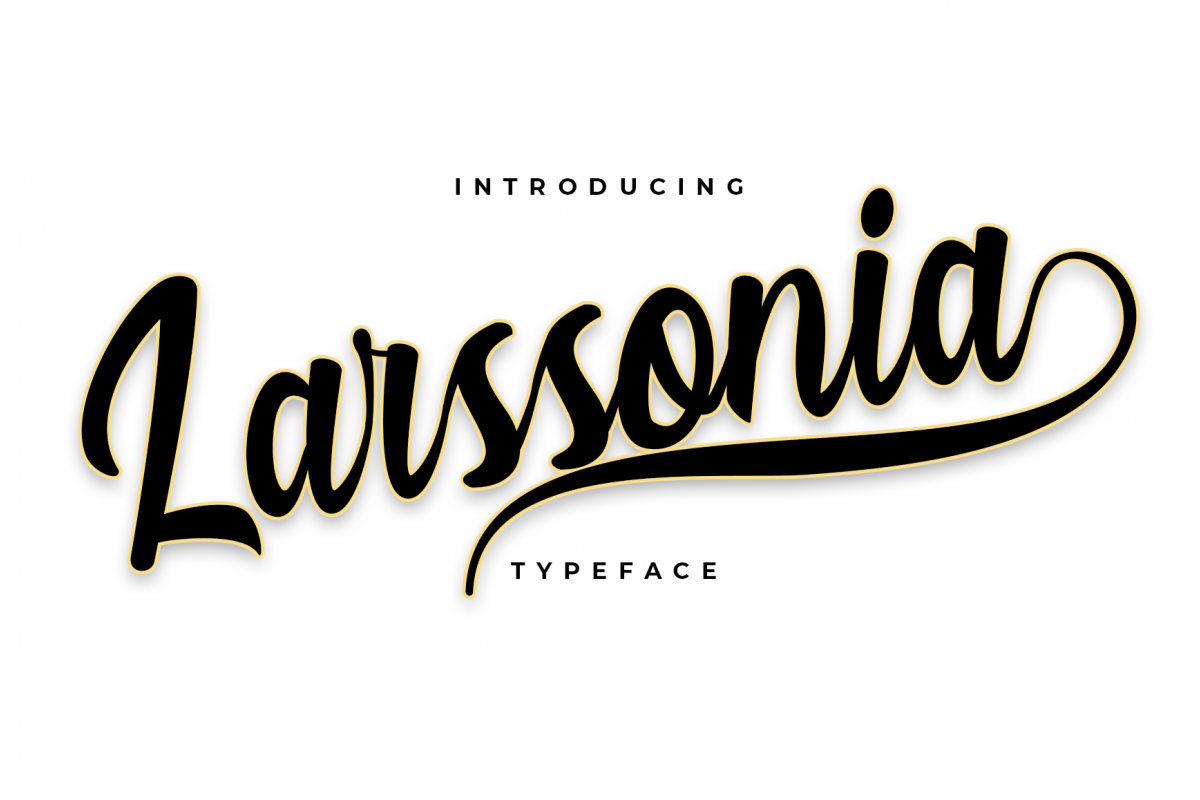
Larssonia Typeface
Larssonia Script
Introducing the Larssonia Typeface! This font was created to help you designing logotype or lettering style logo for your Brand or your clients, and you also can use it for designing all of the graphic stuff such as badge, sign, packaging, headline, title, T-shirt/apparel, Poster, etc.
Larssonia Typeface was designed for personal characters such as strong, confidence, dynamic, readable, Energic, dynamic, etc.